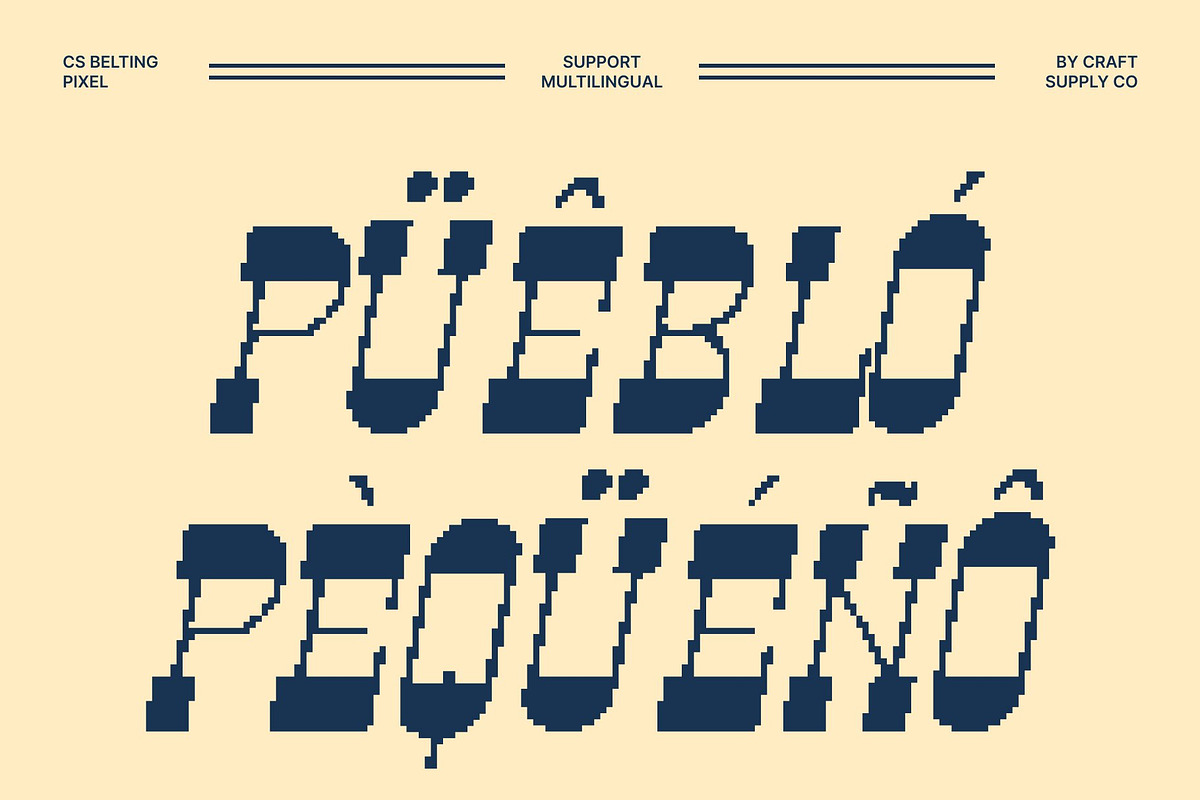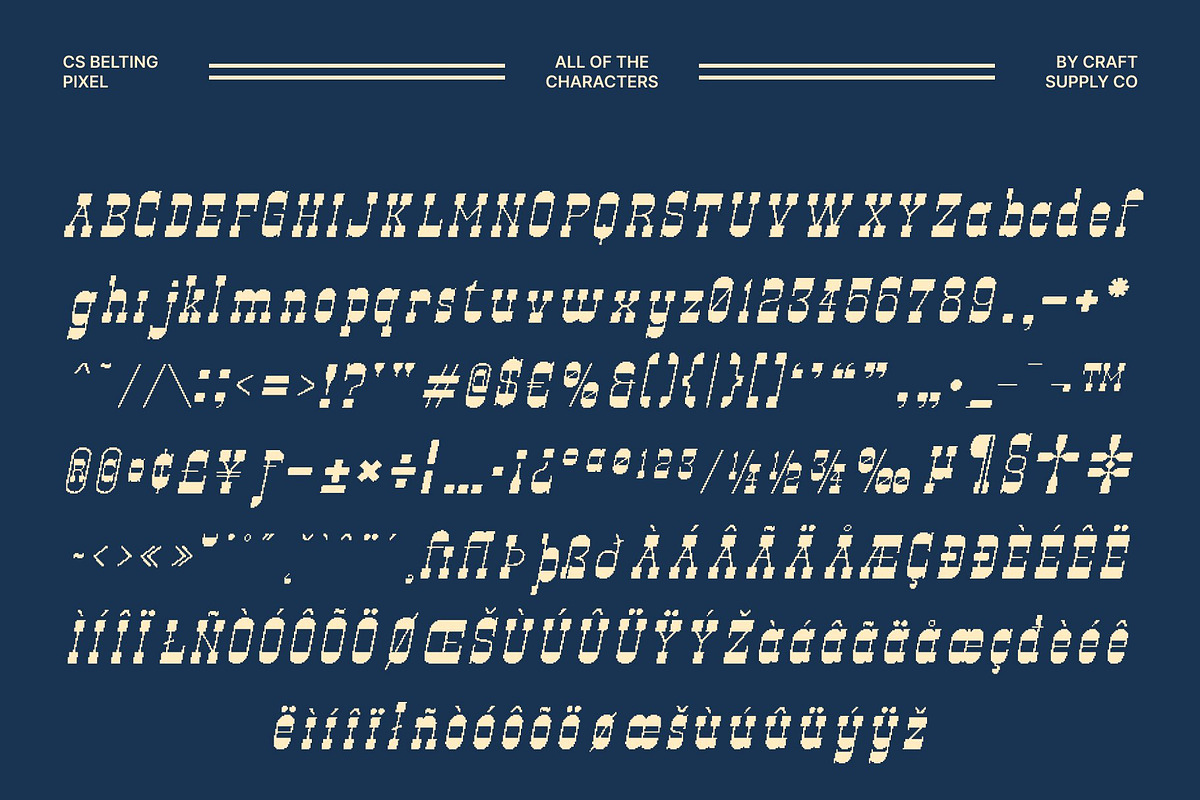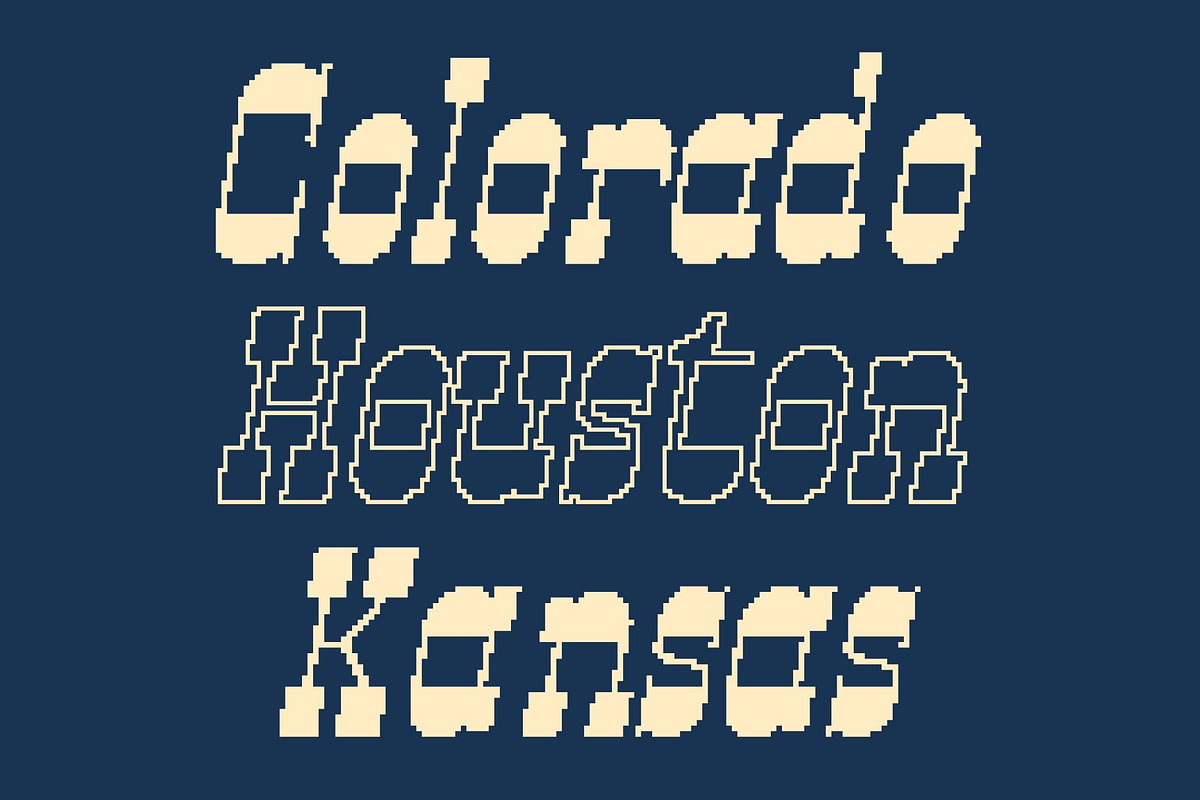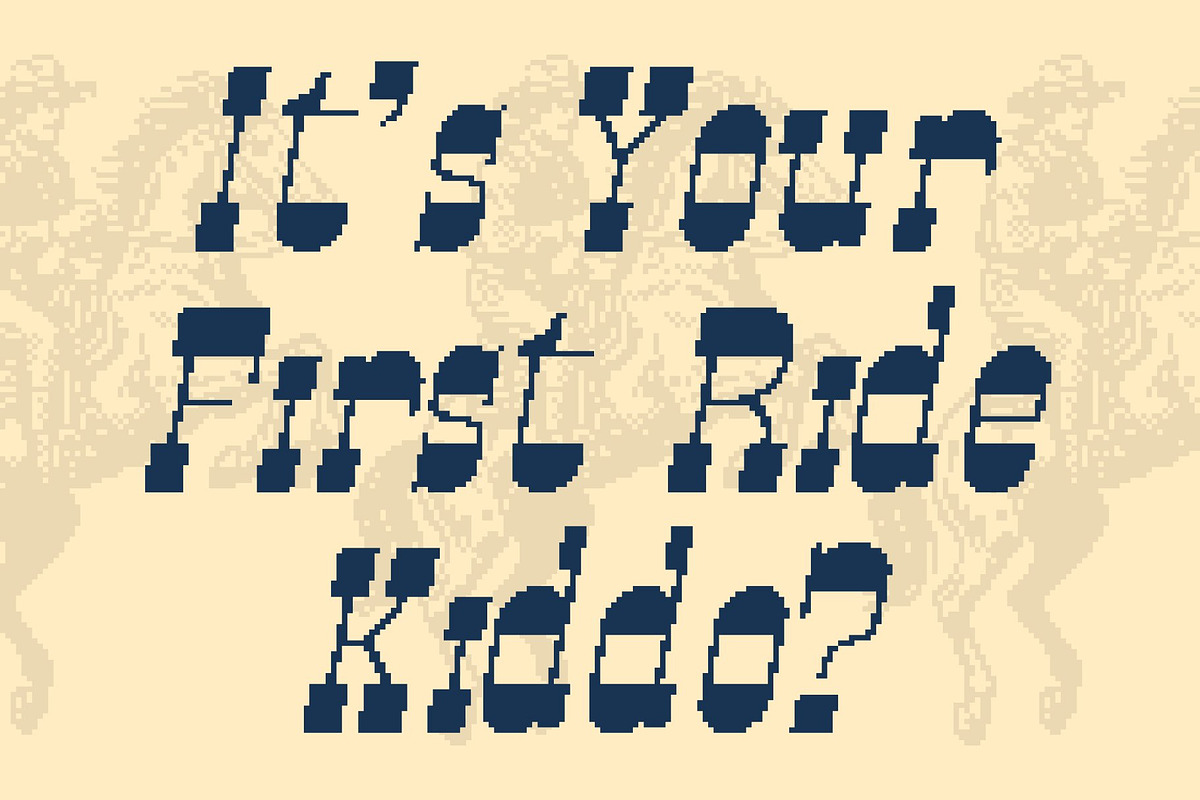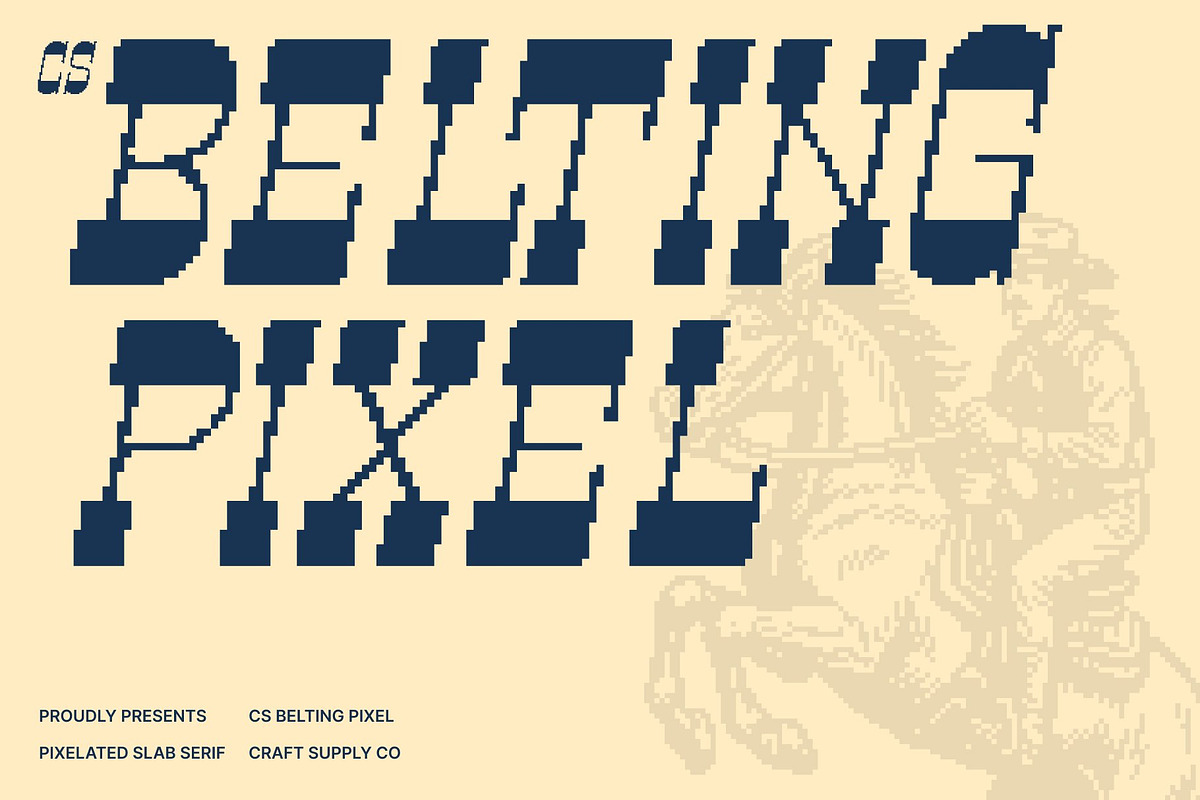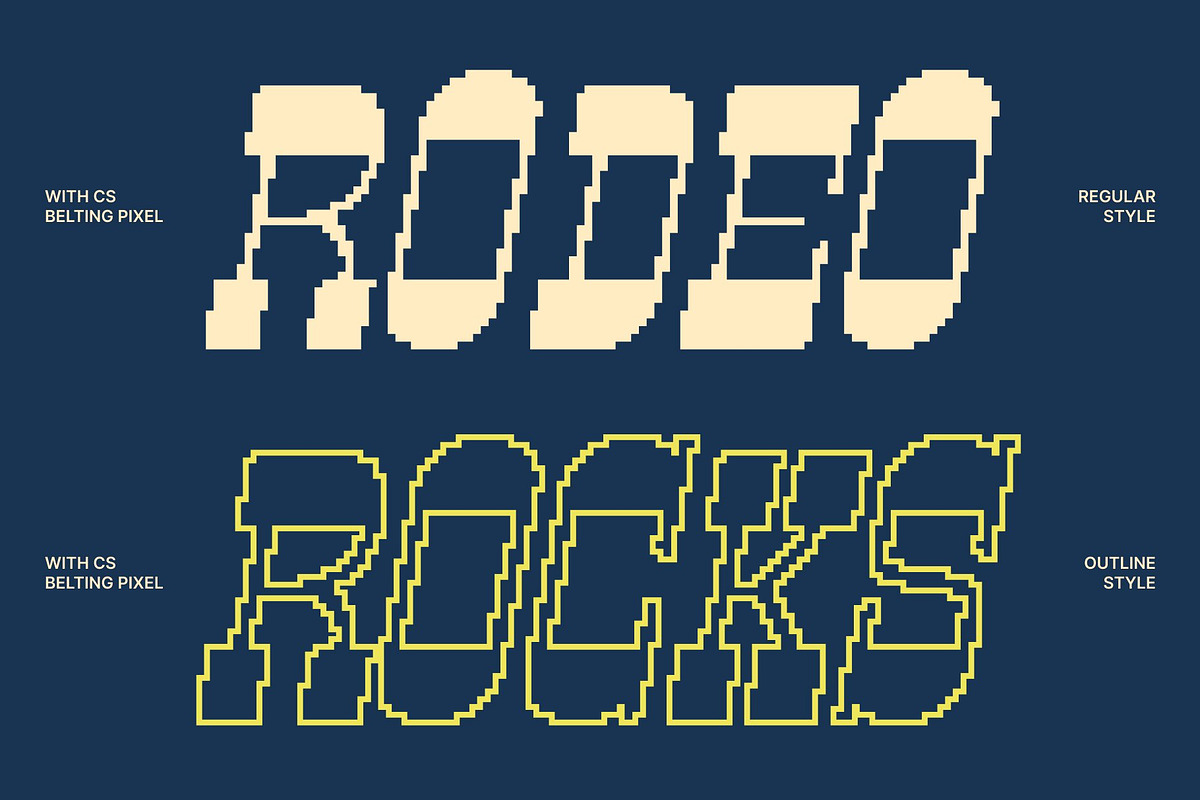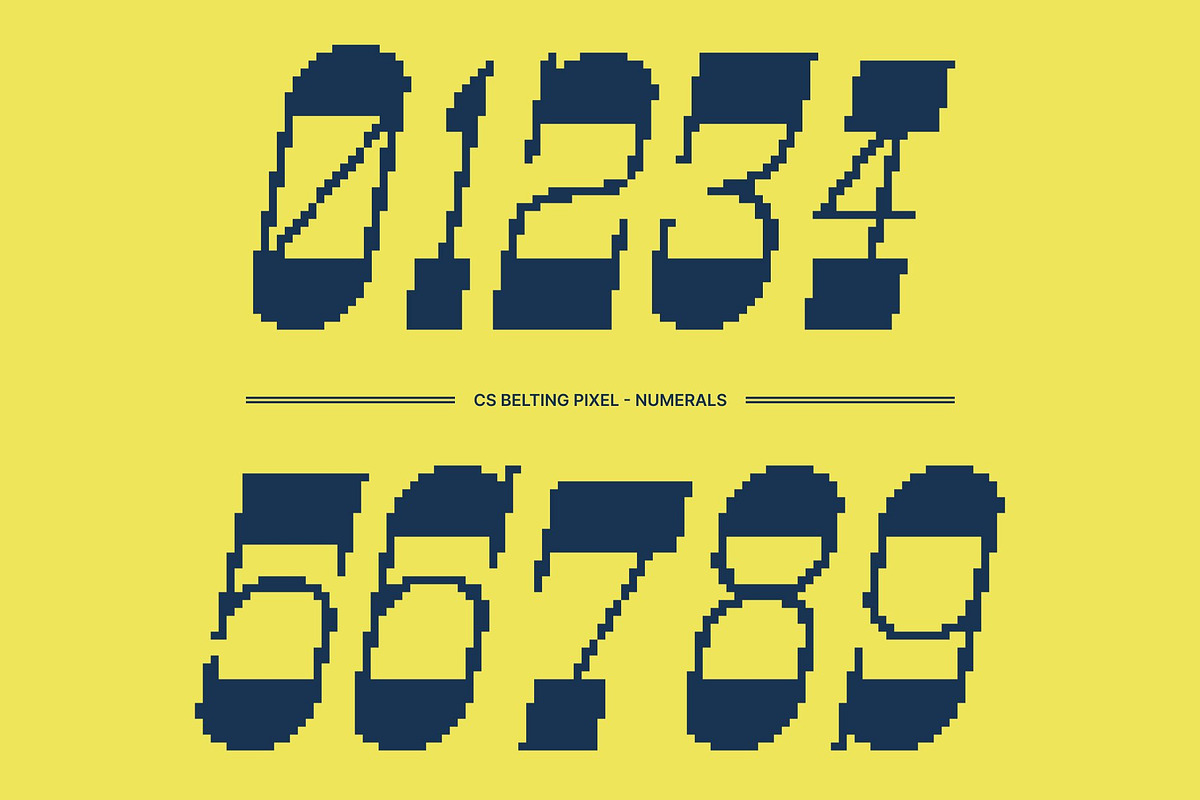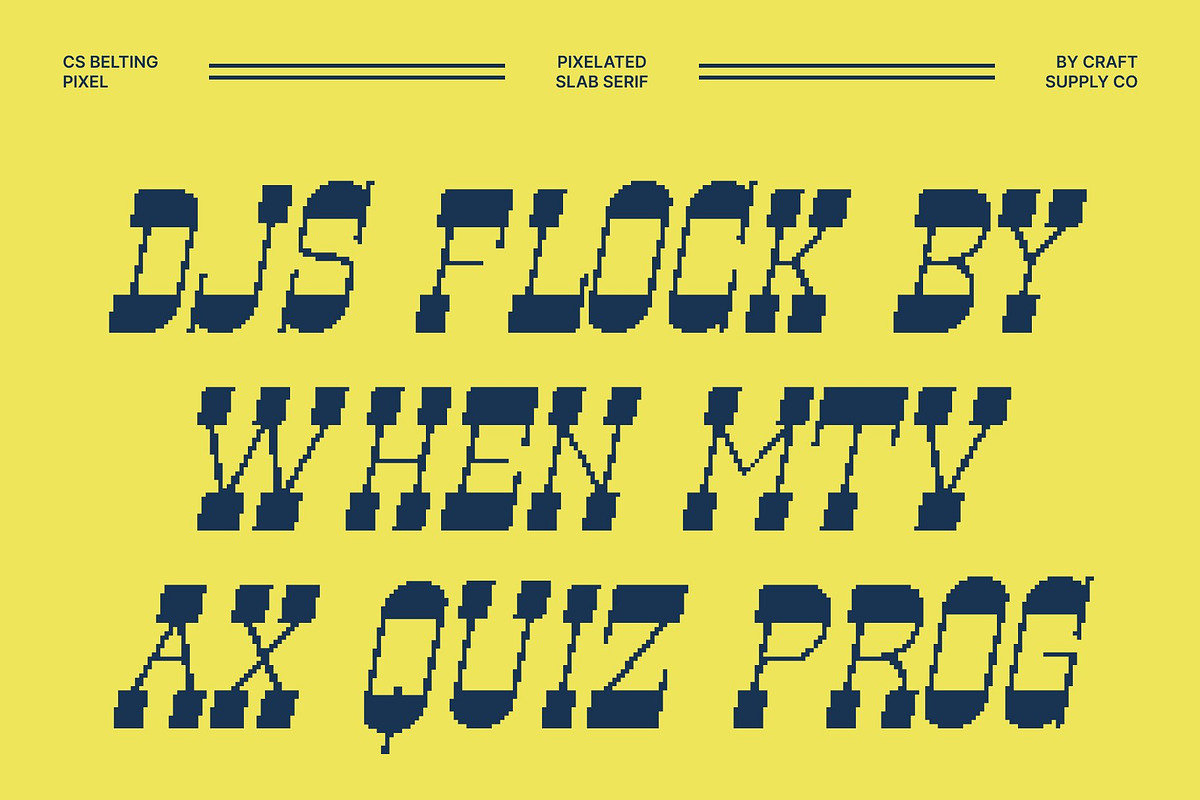
CS Belting Pixel
CS Belting Pixel – Rugged Western Spirit with Retro Digital Edge
Western Display Font with Pixel Frontier Character This is a bold western display font that blends classic Wild West spirit with a distinctive pixel-based construction. Inspired by frontier signage, cowboy culture, and vintage wanted posters, this font reimagines rugged western typography through an 8-bit digital lens.
Slab Serifs and Wide Letterforms in Pixel Style Defined by slab-like serifs and wide, commanding letterforms, this font feels sturdy and authoritative. The pixel treatment transforms its bold proportions into blocky digital shapes, enhancing its visual impact and readability. Each letter stands firm and confident, combining the grounded weight of western typography with the nostalgic charm of retro pixel graphics.
Rugged Cowboy Grit Meets Old Digital Aesthetics This font captures the toughness and independence of frontier life while embracing the look of early digital displays. Its rugged personality reflects cowboy grit and masculine strength, while the pixel style introduces a playful, nostalgic twist. This fusion makes the font feel both raw and unique perfect for designs that want a bold western identity with a retro-tech vibe.
Perfect for Retro Western, Gaming, and Pixel-Themed Designs Ideal for posters, logos, packaging, apparel, and vintage-inspired branding, this font shines in projects that celebrate western heritage and digital nostalgia. It works especially well for game titles, pixel-art visuals, whiskey labels, outdoor brands, event posters, and retro-themed designs that demand character, strength, and standout style.
- CS Belting Pixel Regular
- CS Belting Pixel Outline